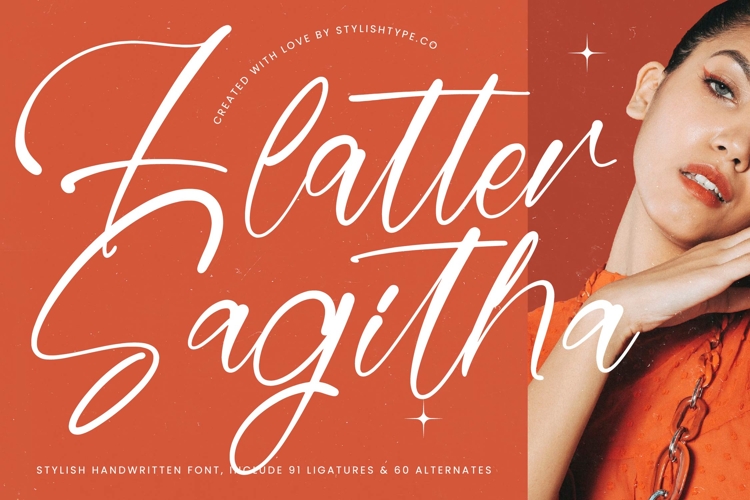
Flatter Sagitha - Stylish Handwritten Font
Flatter Sagitha - Stylish Handwritten Font is a breathtaking, high-contrast script that commands attention with its dramatic swashes and organic, hand-penned rhythm. This typeface effortlessly bridges the gap between casual authenticity and sophisticated luxury, making it an ideal choice for establishing a powerful brand identity. Its delicate weight variation ensures maximum legibility while maintaining an irresistible, handcrafted charm.